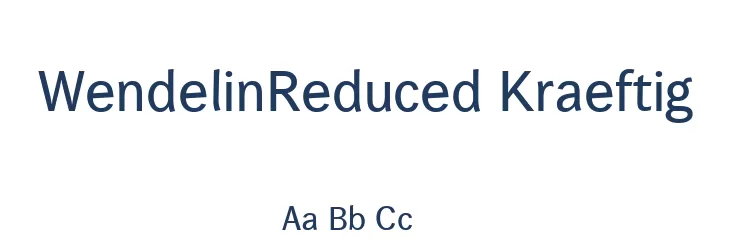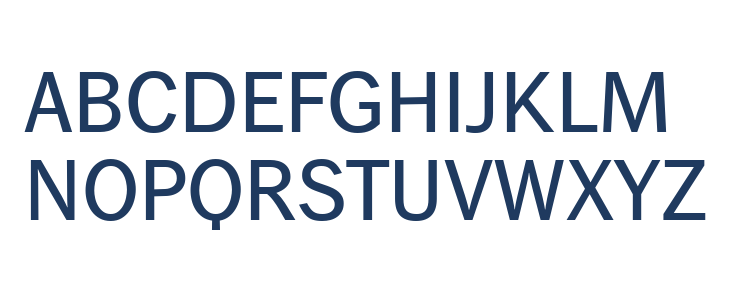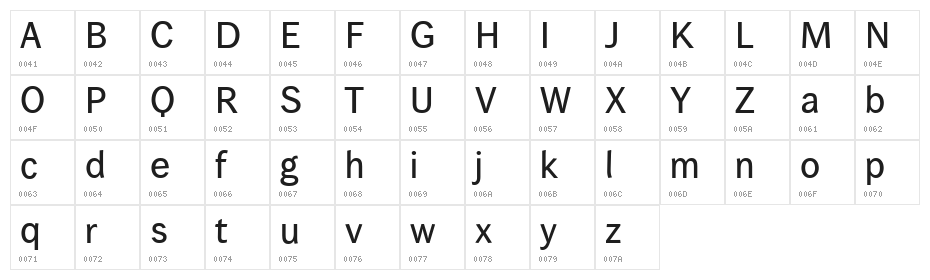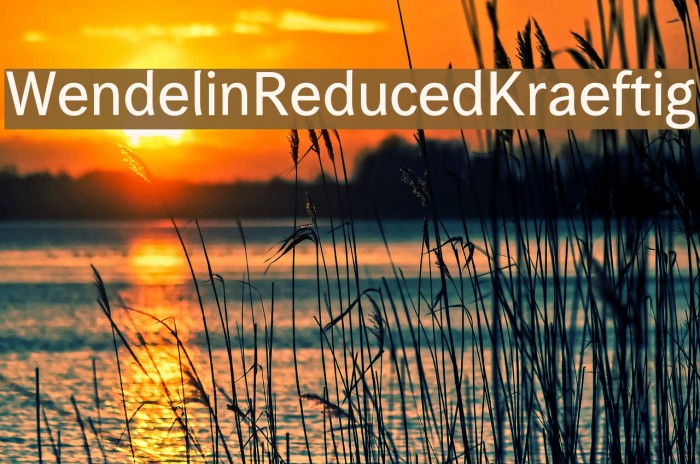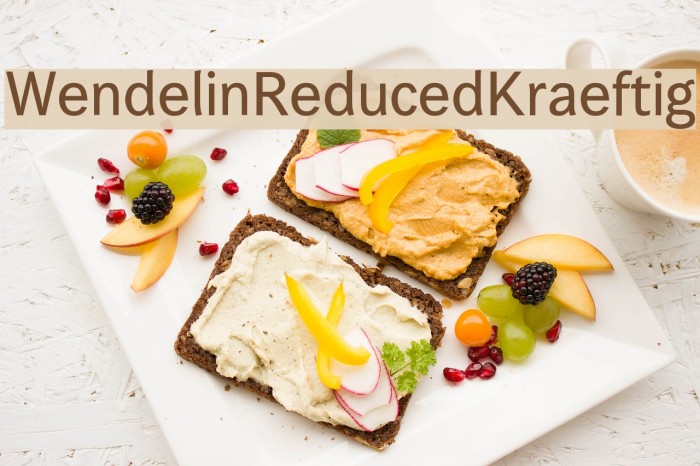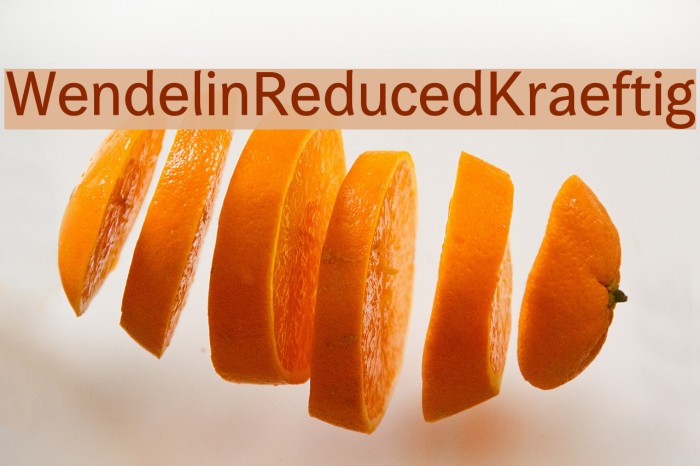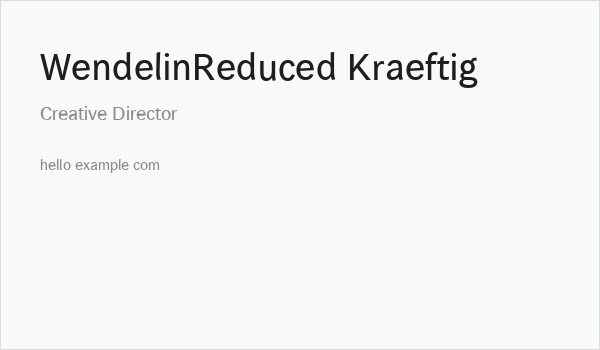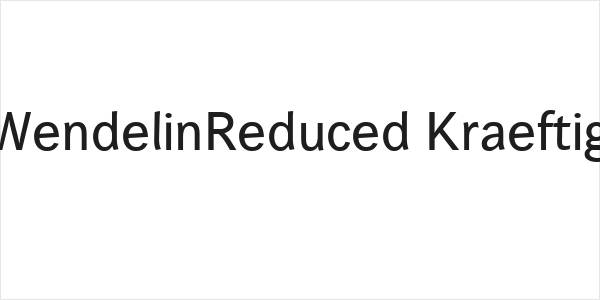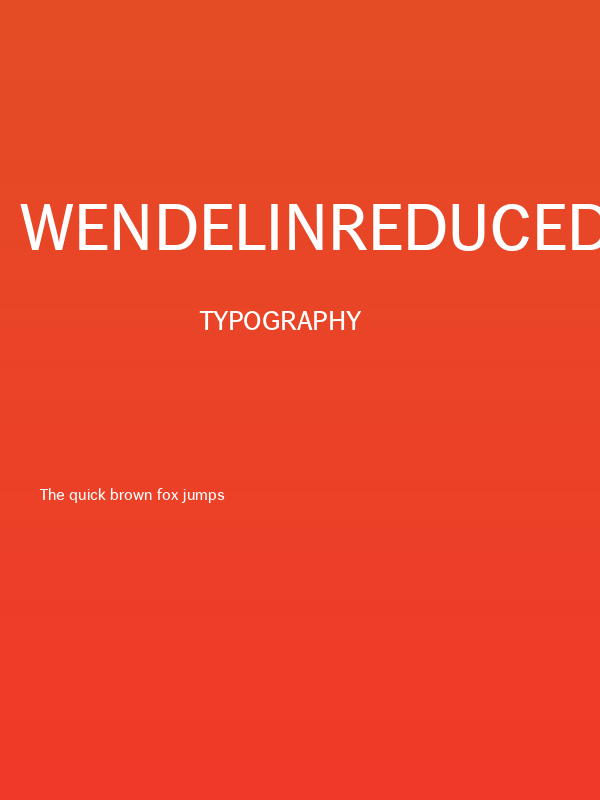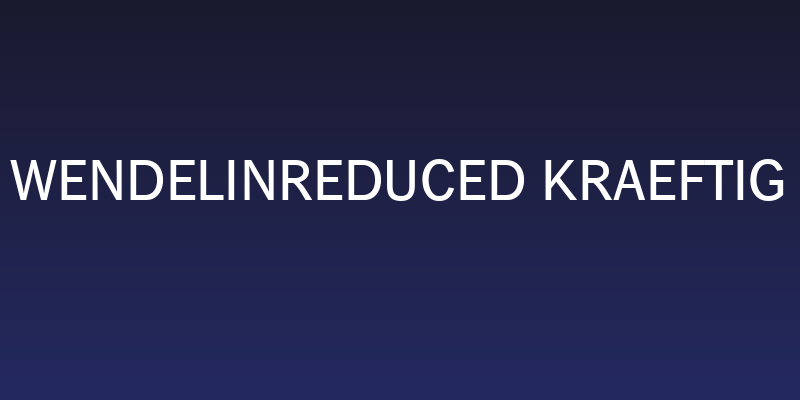
WendelinReduced-Kraeftig Font
WendelinReduced-Kraeftig Description
This font features a clean and modern sans-serif design, characterized by its simplicity and readability. The letters are evenly spaced with a consistent stroke width, providing a balanced and harmonious appearance. The uppercase and lowercase characters are well-proportioned, making it suitable for a variety of design applications. The font's geometric shapes and straight lines give it a contemporary feel, while maintaining a professional and approachable look. It includes a full set of uppercase and lowercase letters, numbers, and a selection of special characters, ensuring versatility for different uses.
| Proposed Projects | Ideal for corporate branding, web design, editorial layouts, and user interfaces. |